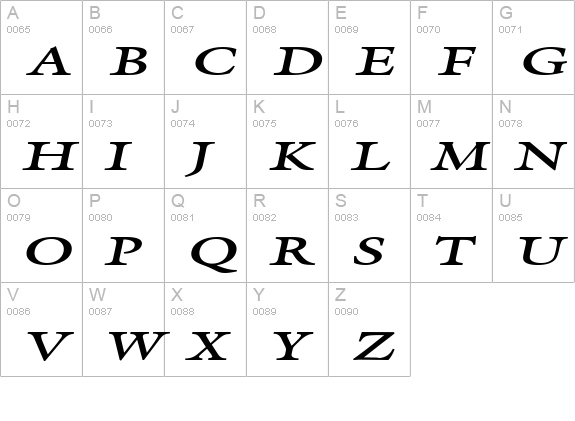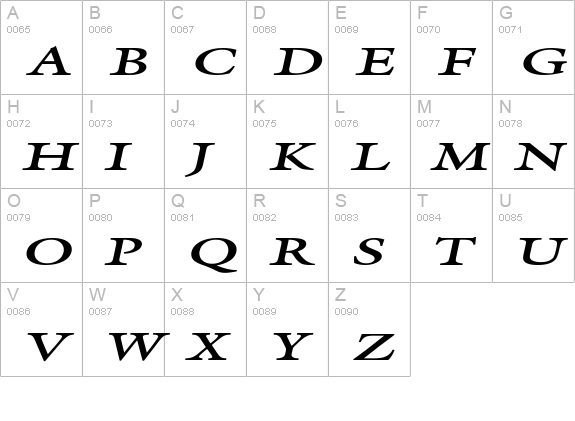
Galant Extended BoldItalic is a distinctive, extended-width variant in the Galant typeface family \xE2\x80\x94 well suited to design and typography projects.
Introducing Galant Extended BoldItalic, a stunning font that exudes elegance and sophistication. With its sleek and refined design, this typeface is perfect for adding a touch of luxury to any project. The bold and italic combination creates a visually striking effect, making your text stand out in a captivating way. Galant Extended BoldItalic is a versatile font that can be used in a variety of contexts, from advertising and branding to editorial design and website headers. Its unique and distinctive letterforms are sure to grab attention and leave a lasting impression on your audience. But what truly sets Galant Extended BoldItalic apart is its availability as a free download at FontsMarket.com. That's right, you can enjoy the beauty and versatility of this font without spending a dime. FontsMarket.com offers a wide range of high-quality fonts, and Galant Extended BoldItalic is no exception. Simply visit the website, and with just a few clicks, you can have this exquisite typeface at your fingertips. Whether you're a designer, a creative professional, or simply someone with a passion for typography, Galant Extended BoldItalic is a must-have addition to your font collection. Its bold and italic style, combined with its free availability, makes it a valuable asset that will elevate your designs to new heights. Download Galant Extended BoldItalic today and unleash your creativity with this remarkable font. Let it inspire your projects and help you create visually stunning and impactful designs. Experience the beauty and versatility of Galant Extended BoldItalic, freely available at FontsMarket.com.